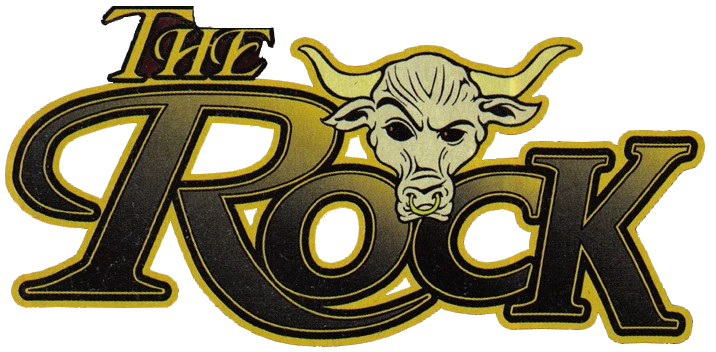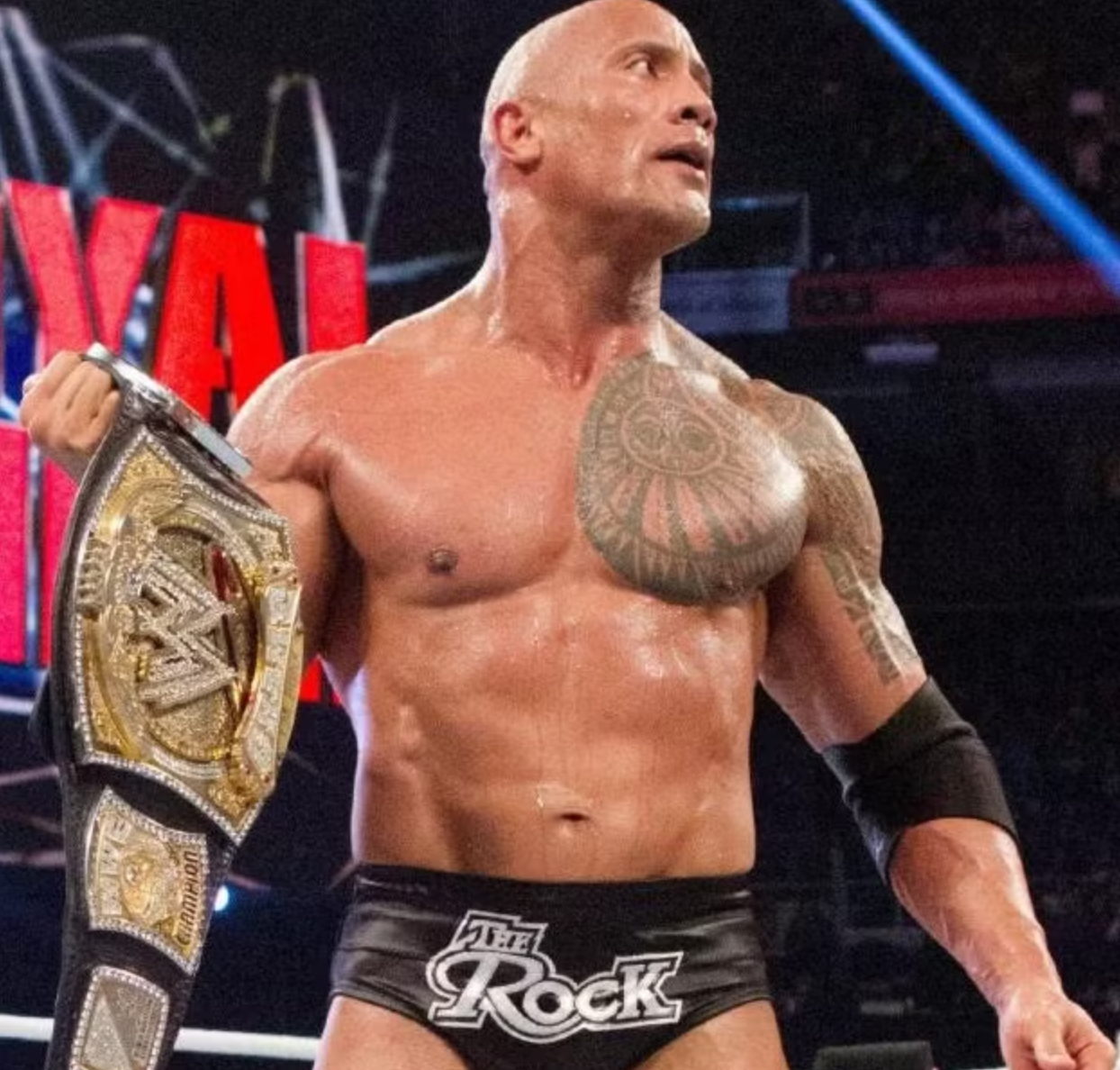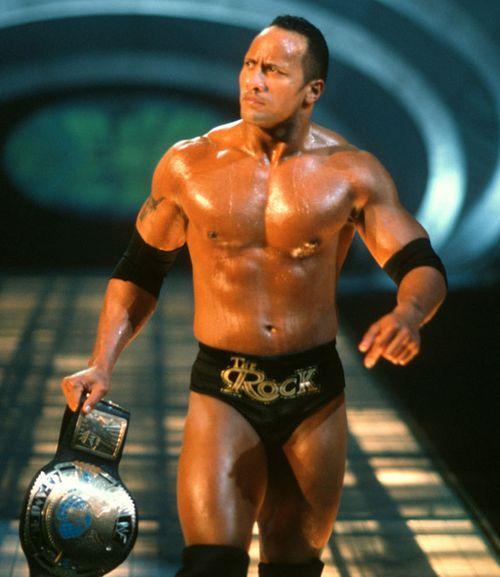
The Rock's 90s/2000s Logo font
Hello hello! In the late 1990s/early 2000s, pro-wrestler turned mainstream actor The Rock had a custom logo that was mostly used only on his wrestling trunks (and a few t-shirts, but mostly just his trunks!).
I'm looking to identify the two different fonts used in the logo as the "THE" and the "ROCK" are two different typefaces. I'm 99% sure the "ROCK" portion is a modified version of Bookman w/swashes and some custom stretching/modifications but I can't find the "THE" typeface. It looks so 1990s Microsoft Word familiar but I just can't seem to find it.
If anyone has suggestions for both typefaces or either one, please let me know! (If I'm wrong about Bookman for the "ROCK" portion, happy to learn what might be even closer or the exact fit!)